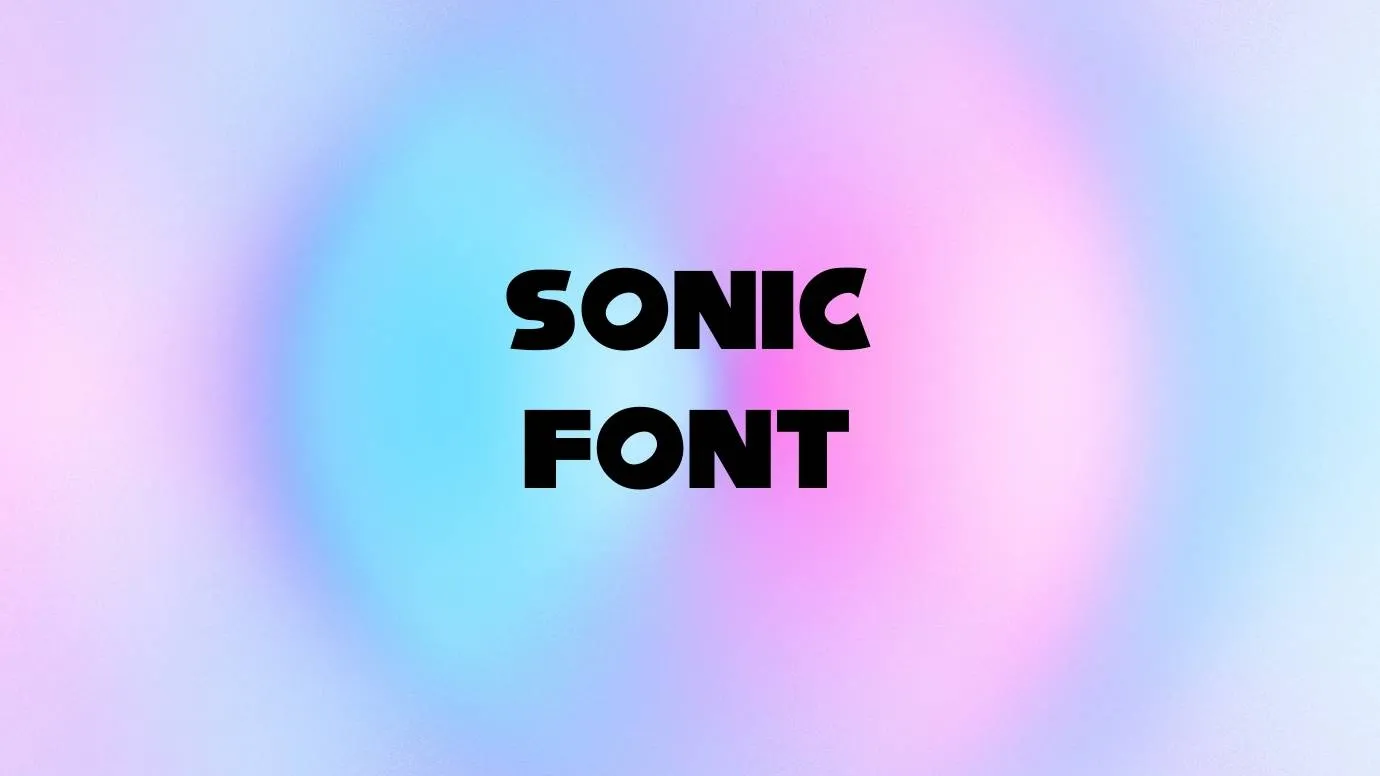
Sonic is a Geometric Sans typeface, made its first appearance as the logo font for a renowned American fast-food chain in the 1920s, capturing attention worldwide ever since. ThisĀ  font was created by Paul Renner, celebrated for his numerous typeface designs.
It is a minimal and easy-to-understand typeface that provides the design with a perfect and understandable look that works well with polya font.
Sonic Font Family